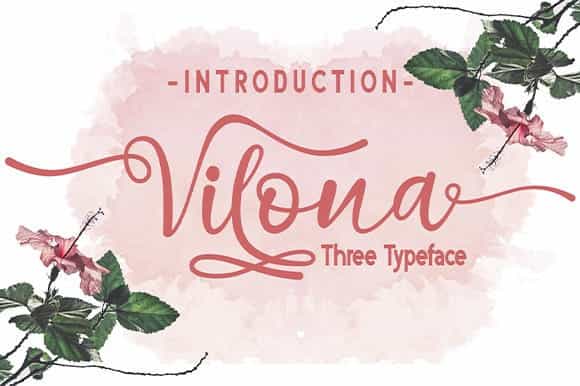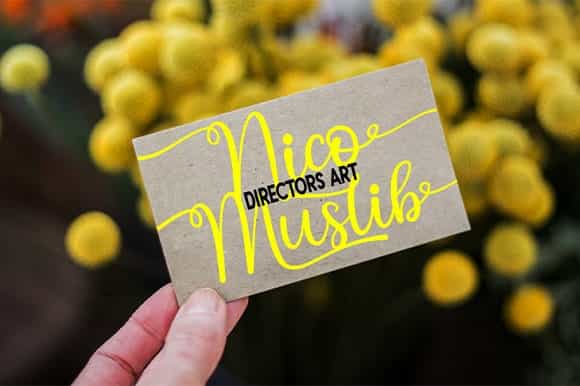
Vilona Font
Vilona Font is a script font that is quite unique, and it really adds character to your creations. It has curved characters that are suitable to design a catchy message. It can be used for posters, branding, advertising and everything in between!